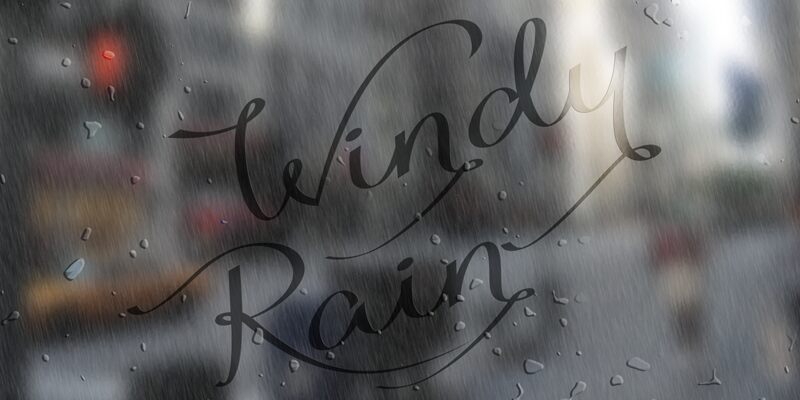
Windy Rain Demo
WINDY RAIN is the clean version of my first handwritten calligraphy font "Rainy Wind".
Please note that this is my first attempt to create cyrillic handwritten fonts they may not be perfect in appearance, legiblility and kerning. Therefore all feedback and help yould be greatly appreciated for future development on this font.
-This family does not contain all the language extensions, but I am willing to create any extensions on request